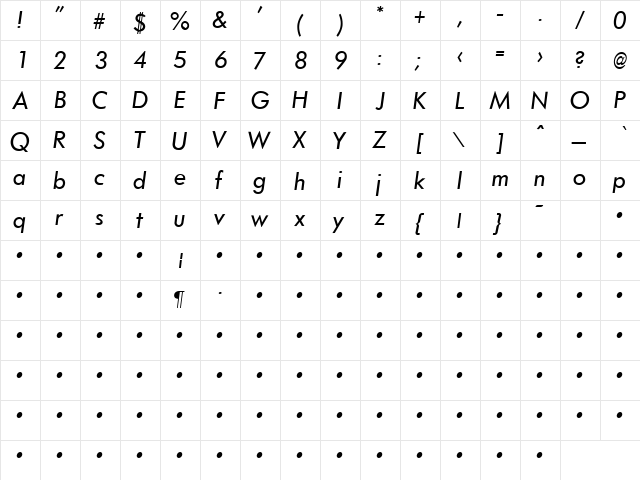
QTFuture Italic
Design Context for QTFuture Typeface
QTFuture channels digital-age aesthetics through its sharp, structured letterforms — ideal for brands that want to signal innovation. Its italic angle brings a sense of urgency and motion to the letterforms.